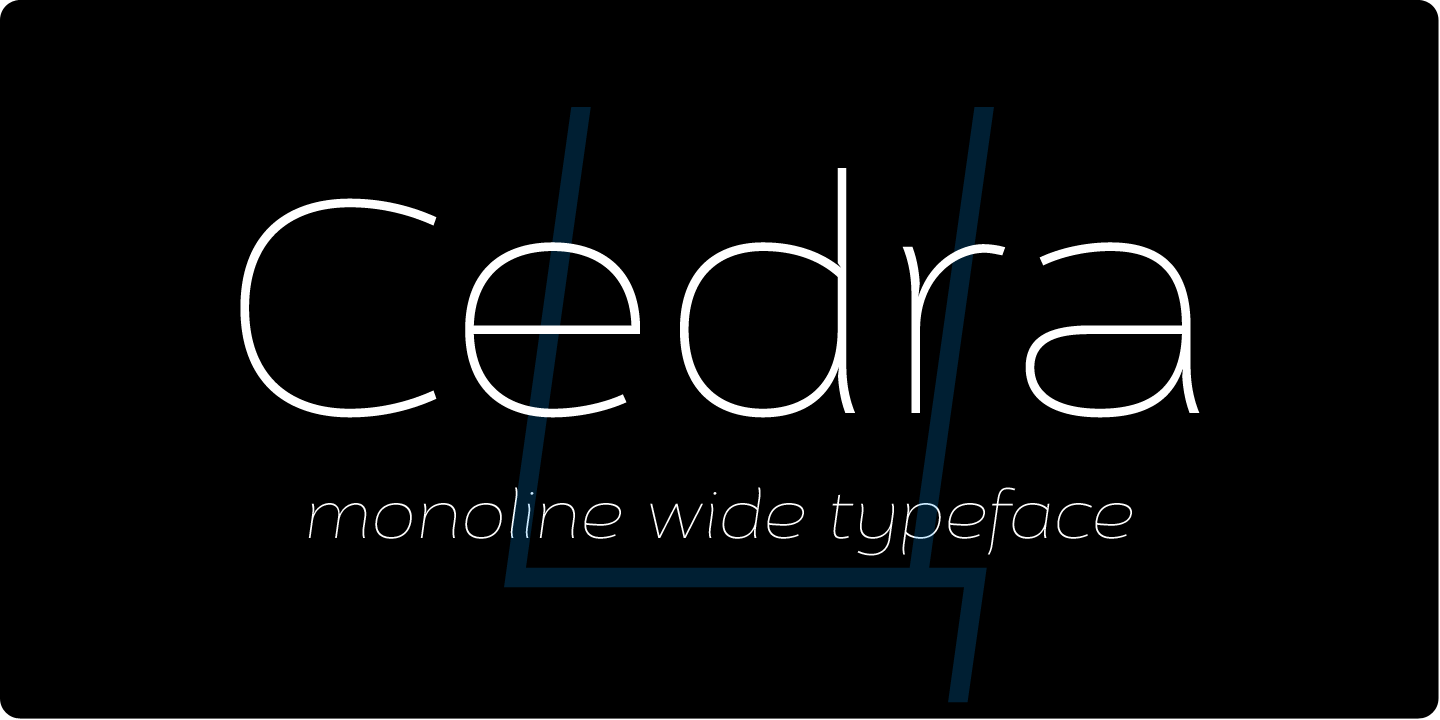
Cedra 4F Font Free Download is a geometric sans-serif typeface that combines precision, clarity, and a contemporary aesthetic. It’s ideal for branding, corporate identity, modern editorial layouts, signage, and tech-focused UI design.
What makes Cedra 4F Font so exciting is its clean, minimalist structure paired with subtle personality. Each letterform is crafted with mathematical balance and a hint of human warmth—perfect for projects that demand both function and form.
The Cedra 4F Font family includes a versatile range of styles: Light, Regular, Medium, Bold, and ExtraBold. This wide spectrum allows designers to create dynamic visual hierarchies while maintaining a unified look across headings and body text.
Whether you’re designing a startup’s brand identity, a sleek portfolio site, or a modern mobile app interface, Cedra 4F Font Free Download delivers consistency and professionalism. You can test it freely, but commercial use requires a valid license. Let Cedra 4F elevate your design with sharp, modern elegance.